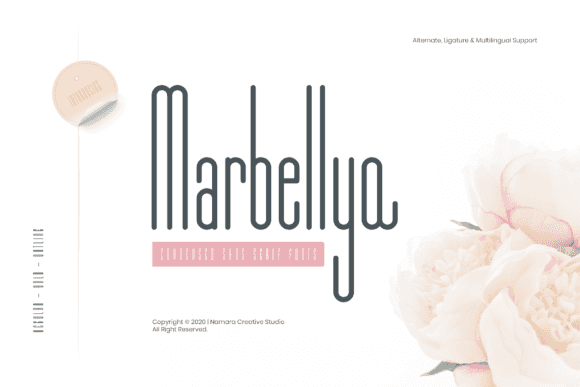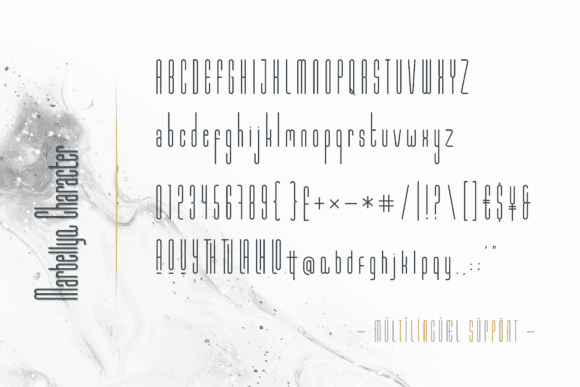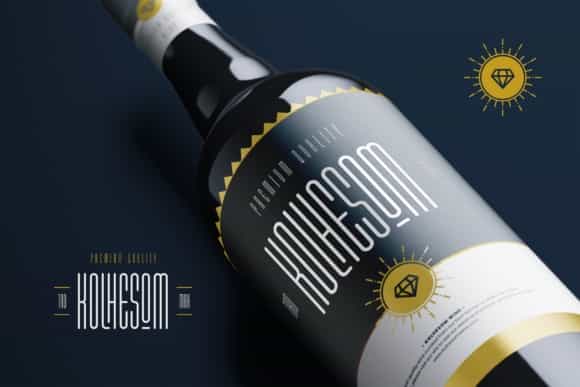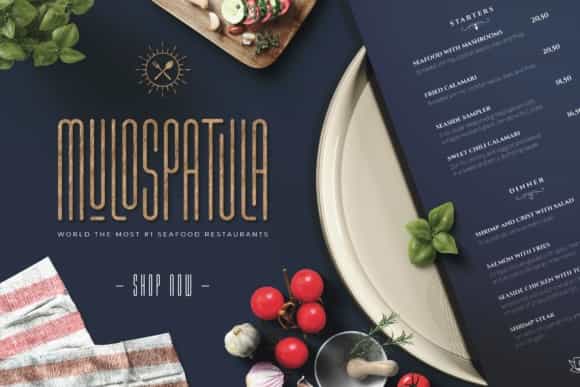
Marbellya can be described as an Minimalist modern and elegant Sans Serif style that features gorgeous ligatures, lots of alternative glyphs and support for multilingual languages. It’s a versatile font that is great in both small and large sizes.